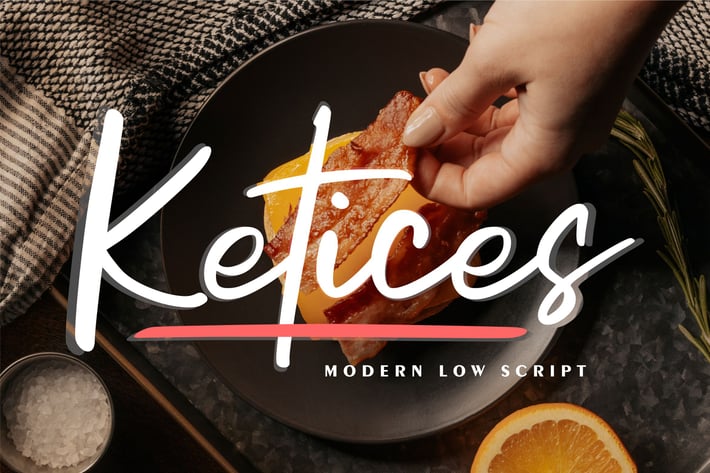
Ketices | Modern Low Script Font
Ketices | Modern Low Script Font with a calligraphy style, So beautiful on invitation like greeting cards, branding materials, business cards, quotes, posters, and more!